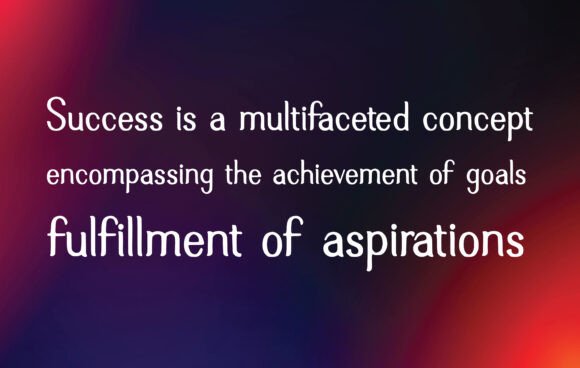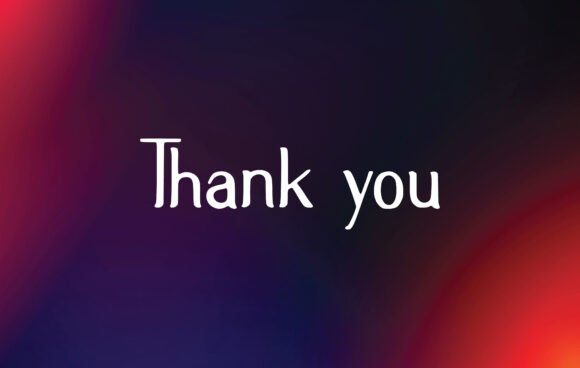
Cade Font: Elevate Your Creative Vision
Have you ever been in the middle of a creative project, staring at a blank page or screen, waiting for the perfect idea to strike? For designers, this moment can be both thrilling and daunting. It’s the moment when the right font can make all the difference between a good design and a great one.
Enter Cade Font, a beautiful and elegant handwritten font designed to bring your creative ideas to life. With its unique charm and character, Cade Font is the perfect choice for creating eye-catching logos, branding, and quotes that leave a lasting impression. Whether you’re a seasoned designer or just starting out, Cade Font is a valuable addition to your toolkit, offering endless possibilities for creative expression and design innovation.
Cade Font Key Features
- Font Family: Cade is a modern sans-serif font family.
- Unique Characteristics: Cade features a clean and minimalist design, with a focus on legibility and readability, making it suitable for body text, headings, and display typography.
- Language Support: Cade supports a wide range of languages, including Latin, Cyrillic, and Greek scripts, making it a versatile choice for global applications.
- Number of Fonts: The Cade font family includes multiple weights, from Light to Bold, and italics, providing a comprehensive set of fonts for various design needs.
Cade Font Review
I recently had the chance to work with Cade Font, and overall, I’m quite impressed with its unique features and stylish design. Here are some things that stood out to me:
- ✨ Clean and modern design aesthetic: Cade Font’s sleek lines and minimalist approach make it a great choice for modern websites and applications.
- ✨ Excellent legibility: The font is highly legible, even at smaller font sizes, making it perfect for body text.
- ✨ Versatile: Cade Font comes in a range of weights, from light to bold, making it easy to find the perfect fit for your design.
- ⚠️ Limited language support: Cade Font only includes a basic Latin character set, which may not be suitable for non-English language websites.
- ⚠️ Not ideal for complex typography: While Cade Font is great for simple designs, it may not be the best choice for complex typography or projects that require a lot of customization.
Overall, I’d say that Cade Font is a solid choice for designers looking for a modern and stylish font. While it may have some limitations, its clean design and excellent legibility make it a great addition to any design project.
The Cade font is ideal for use in modern designs, such as:
- Web design and landing pages
- Presentations and slideshows
- Document and report headers